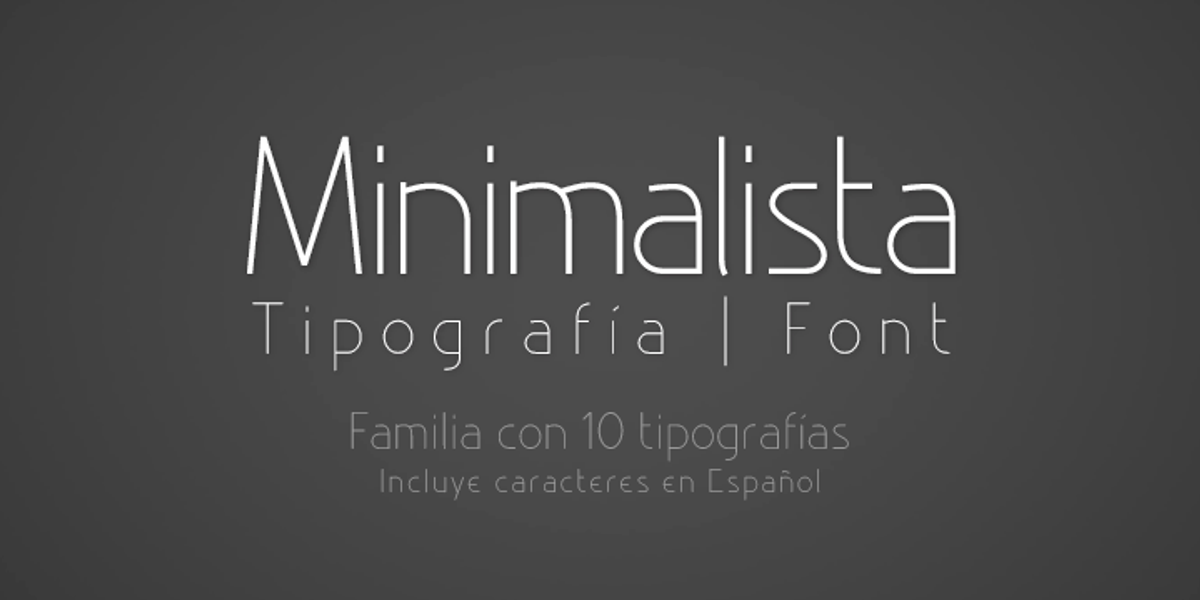
Minimalista
Minimalista is a modern, clean, and tall typeface. This family has been frequently used in titles and flyers. By spacing out the characters, you can create an even more aesthetic and elegant effect. It has five weights and five italic forms. Its successor is the Mínum Sans family.